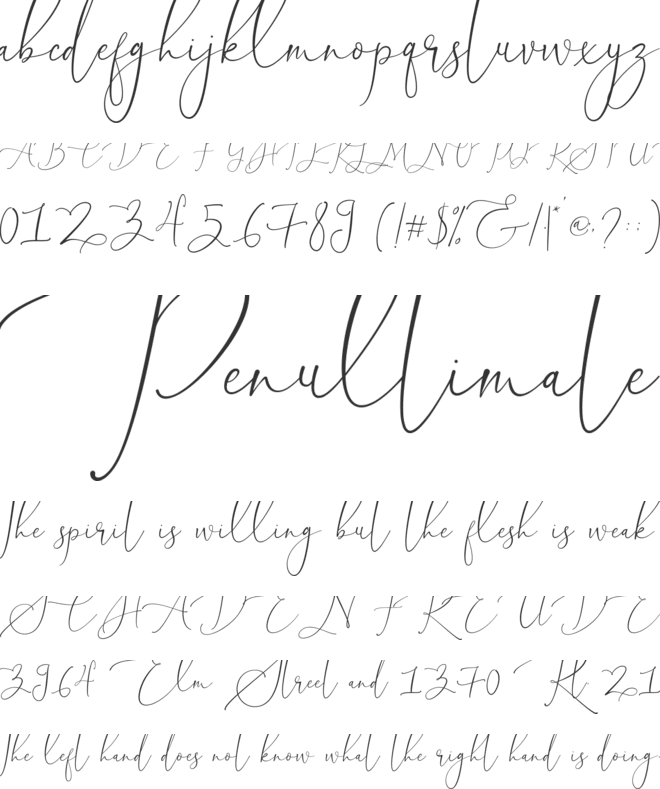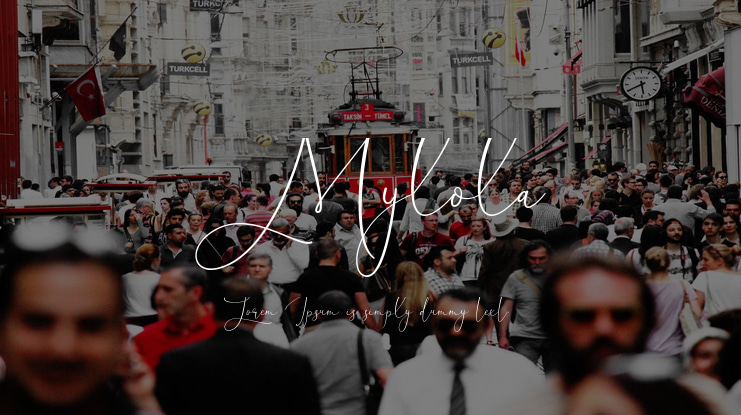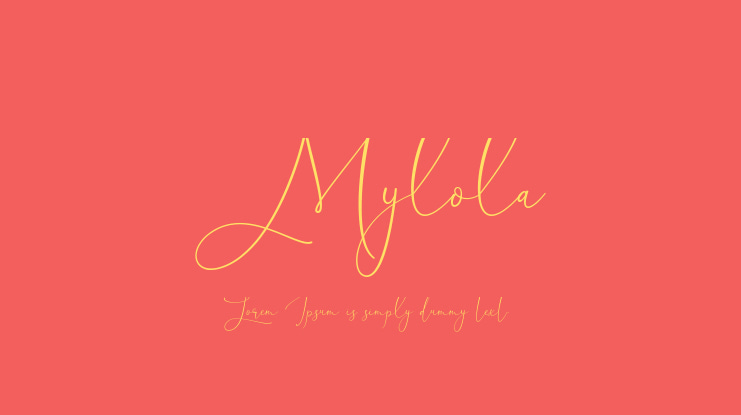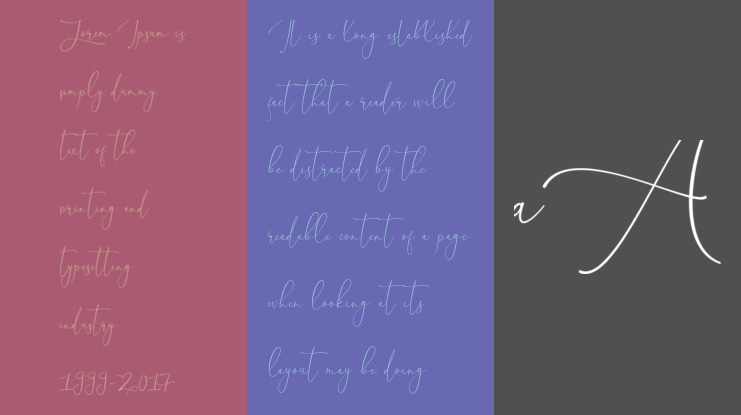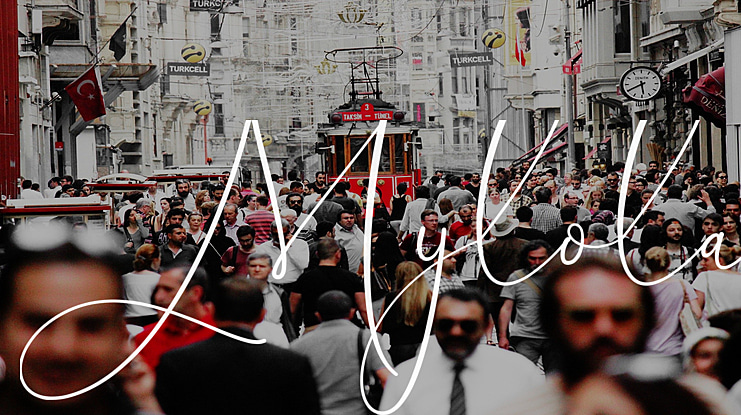
Mylola Font
RasdiType - Ramli Setiadi
Mylola is an exquisite handwritten font, masterfully designed to become a true favorite. It maintains its classy calligraphic influences while feeling contemporary and fresh. Fall in love with it and bring your projects to the highest levels!